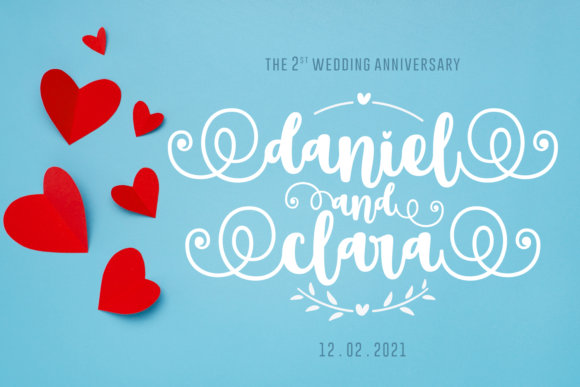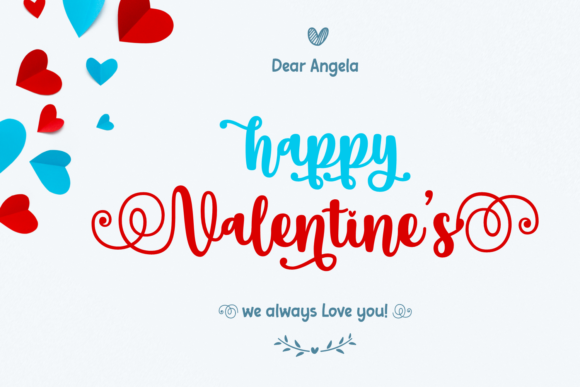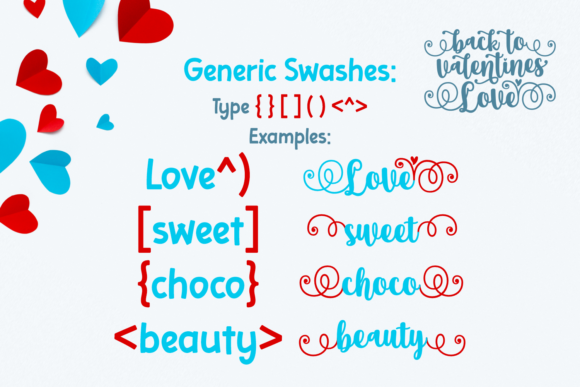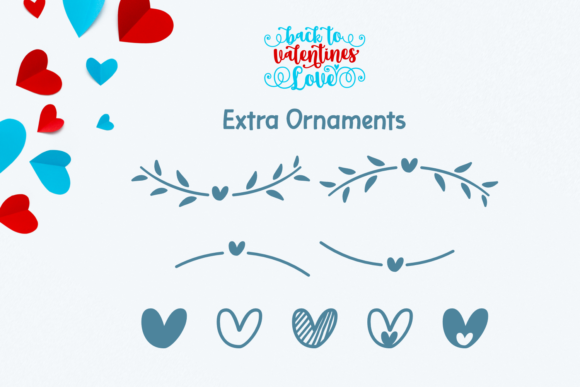
Adding a Touch of Romance to Your Designs
Have you ever found yourself staring at a blank canvas, searching for the perfect font to capture the essence of a special moment? Maybe it’s a Valentine’s Day card, a wedding invitation, or a heartfelt letter to a loved one. Whatever the occasion, the right font can make all the difference in conveying your emotions and making your design truly special.
Enter the Back to Valentine Love Font, a sweet script font adorned with lovely ornaments that’s sure to add a touch of romance to your next project. This charming font is not just limited to Valentine’s Day; it’s a versatile tool that can be used for a wide range of designs, from weddings and anniversaries to birthdays and more.
For designers, the Back to Valentine Love Font is a valuable addition to any toolkit, offering a unique and creative way to express love and affection in their work. Whether you’re a seasoned pro or just starting out, this font is sure to inspire your next design and leave a lasting impression on your audience.
Back to Valentine Love Font Key Features
- Unique Characteristics: Hand-drawn, cursive script with a romantic and vintage feel, ideal for Valentine’s Day and other love-themed designs
- Font Style: Includes uppercase and lowercase letters, numbers, and punctuation marks, with a range of ligatures and swashes for added flair
Back to Valentine Love Font Review
When I first laid eyes on the “Back to Valentine Love Font,” I couldn’t help but feel a sense of nostalgia. The design is a beautiful blend of traditional and modern elements, making it perfect for any Valentine’s Day-themed project. ✨ The font’s elegant and cursive script is sure to capture the hearts of your audience.
Here are some things that work well about this font:
- ✨ Unique blend of traditional and modern elements
- ✨ Elegant and cursive script perfect for romantic occasions
- ✨ Highly customizable, with options for color, size, and spacing
- ⚠️ Limited character set, may not be suitable for longer texts
- ⚠️ May not be as versatile as other fonts for non-Valentine’s Day projects
- ⚠️ Some users may find the script style too ornate or difficult to read
Overall, I would give the “Back to Valentine Love Font” 4 out of 5 stars. While it may have some limitations, its unique design and elegance make it a standout choice for Valentine’s Day projects. With some careful planning and customization, this font is sure to bring a touch of romance to your designs.
For the best results, use the Back to Valentine Love Font in combination with other romantic and whimsical elements, such as hearts, flowers, and pastel colors.
Experiment with different font sizes, colors, and styles to create a unique and eye-catching design.
The Back to Valentine Love Font is perfect for:
Valentine’s Day cards and invitations
Love-themed social media graphics and posts
Romantic gift tags and labels